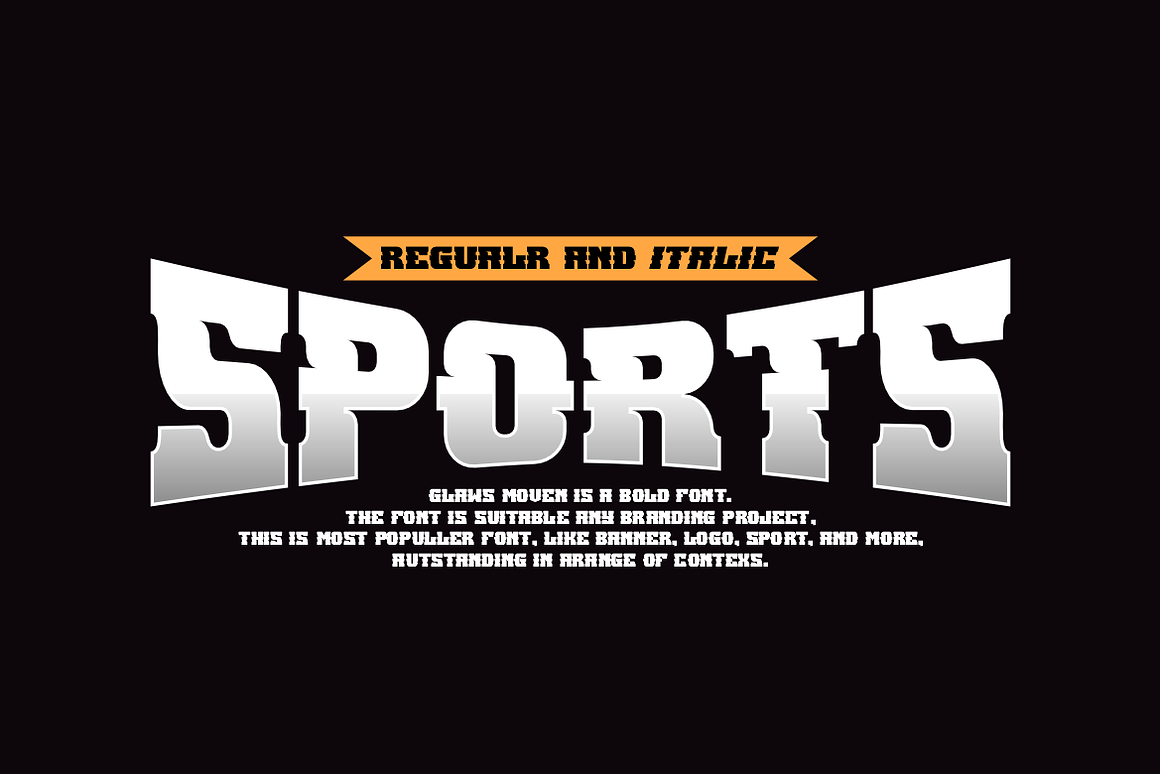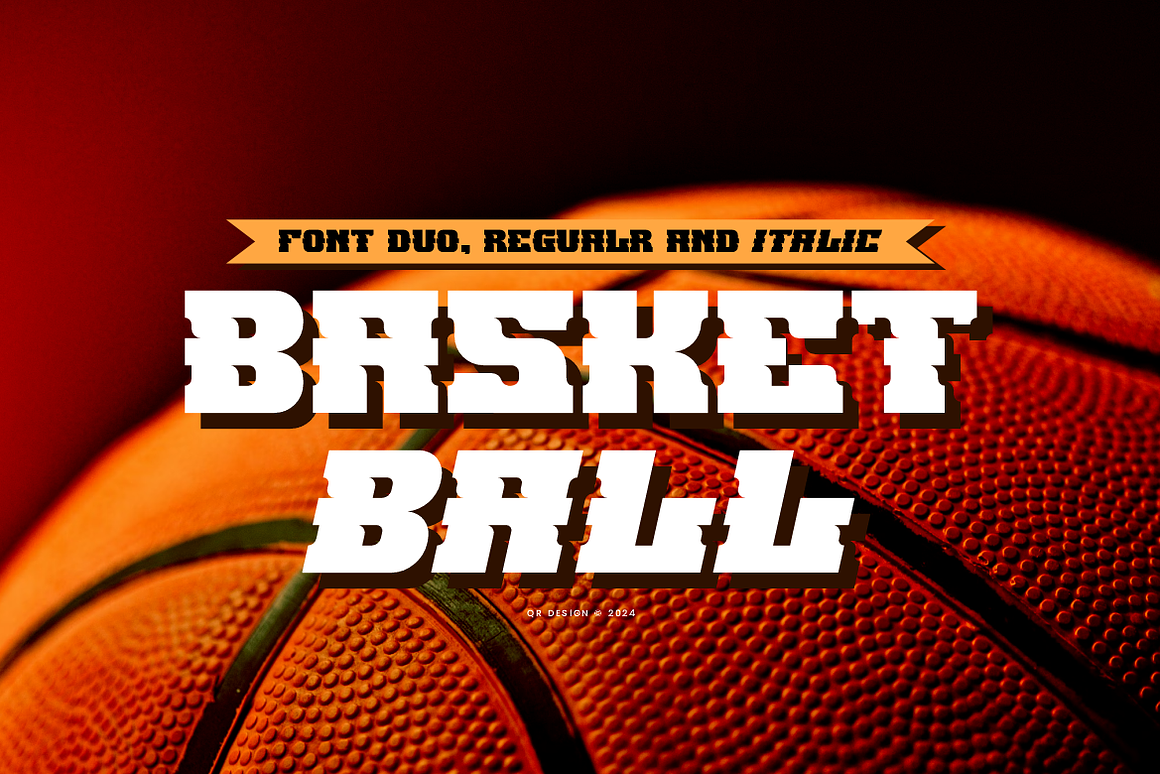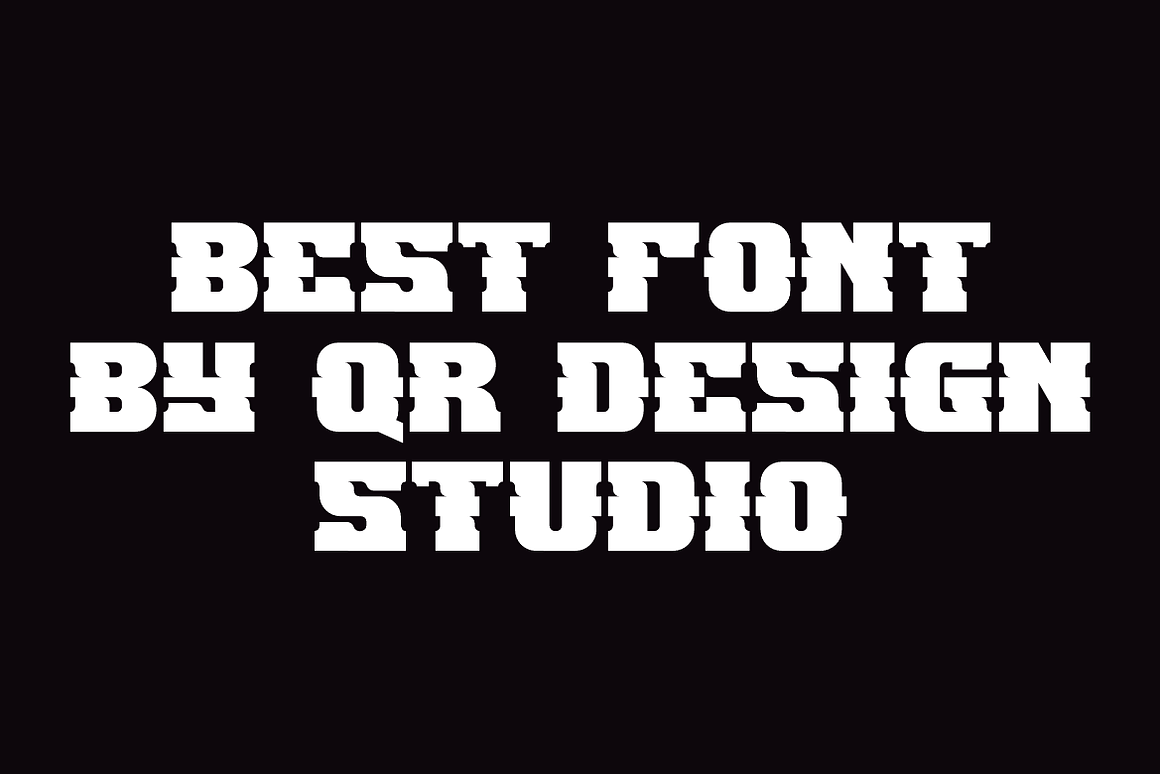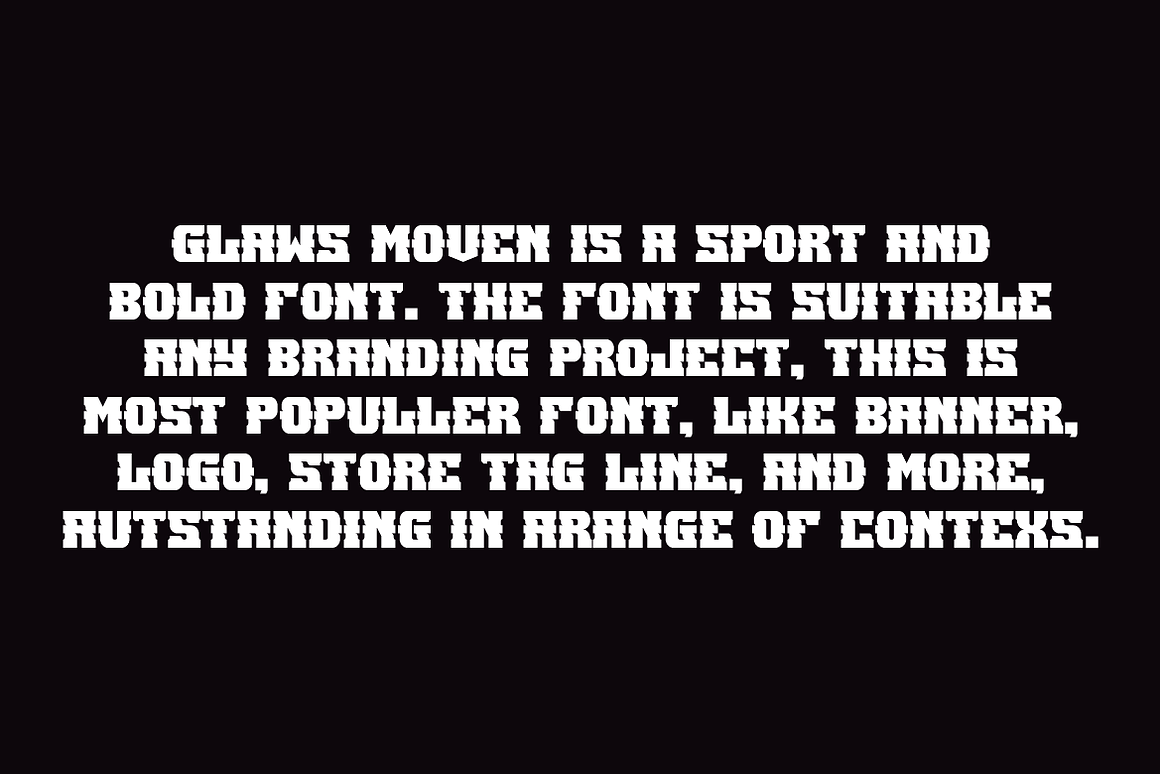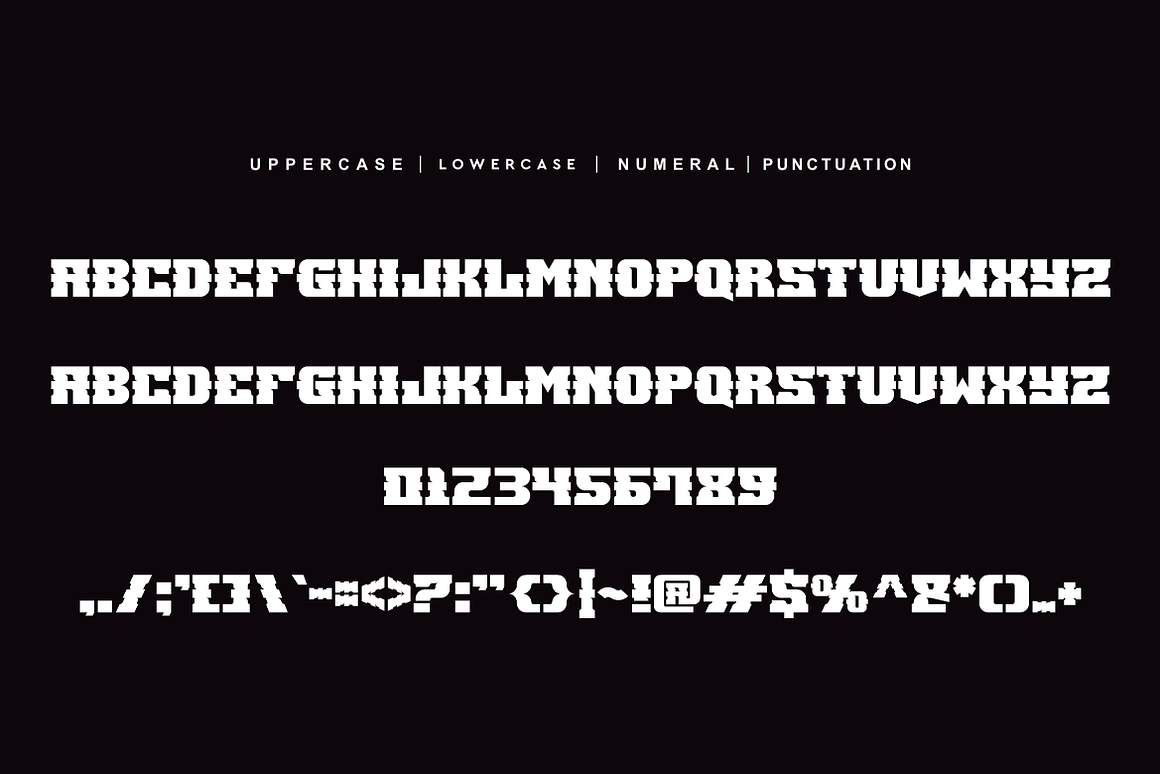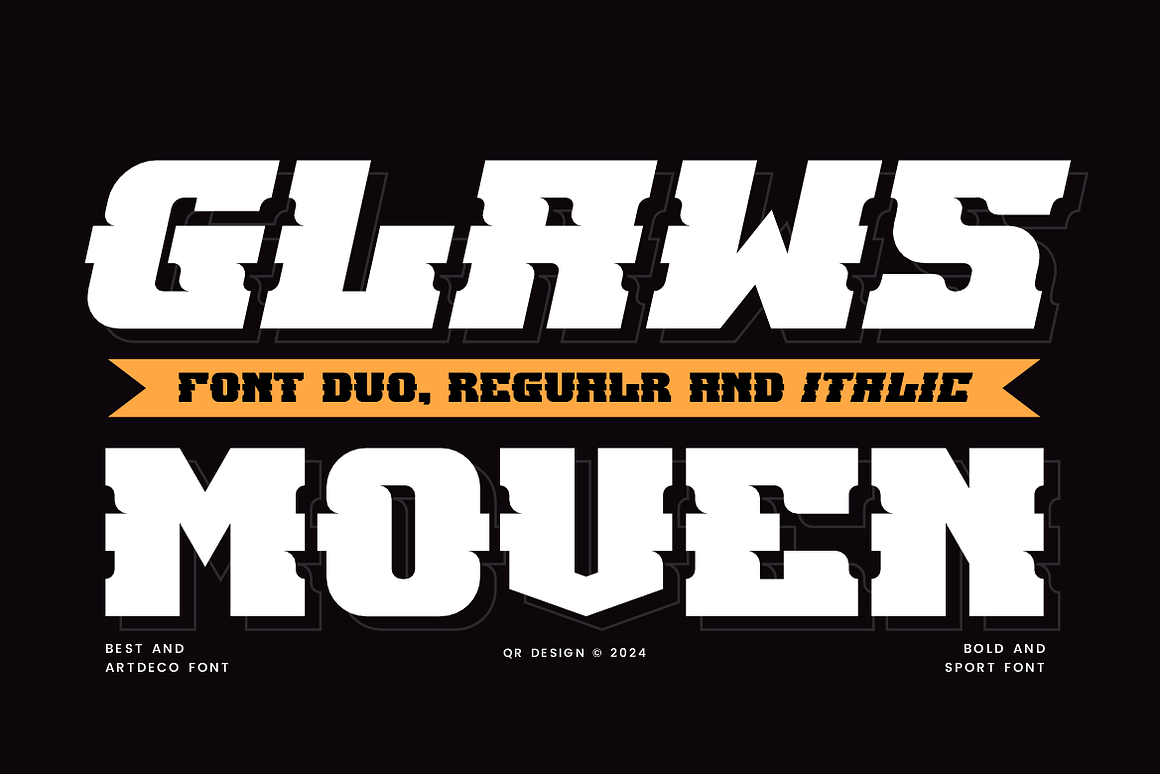
Glaws Moven - Athletics & Basketball Font
Glaws Moven Font is a bold and authentic display font. The font is suitable for any branding project like poster, logo, sport, and many more. Outstanding in a wide range of contexts. Included Glaws Moven.OTF Glaws Moven.TTF Glaws Moven.WOFF